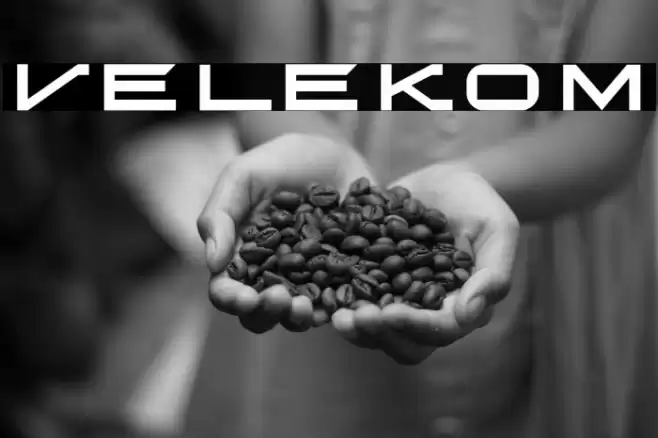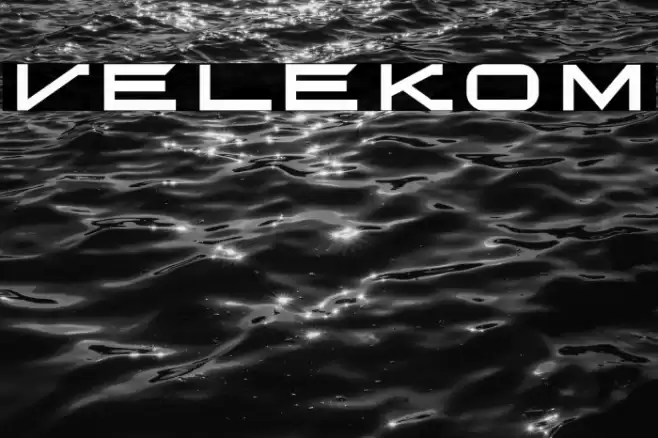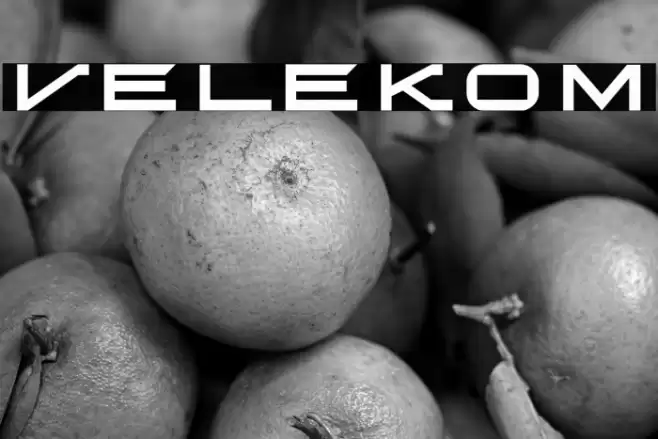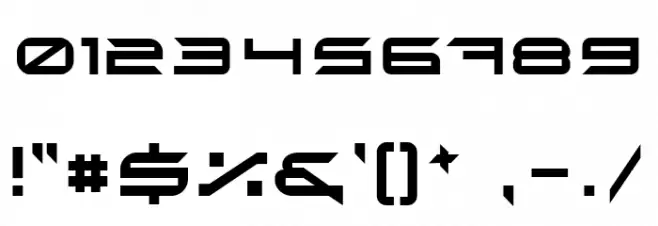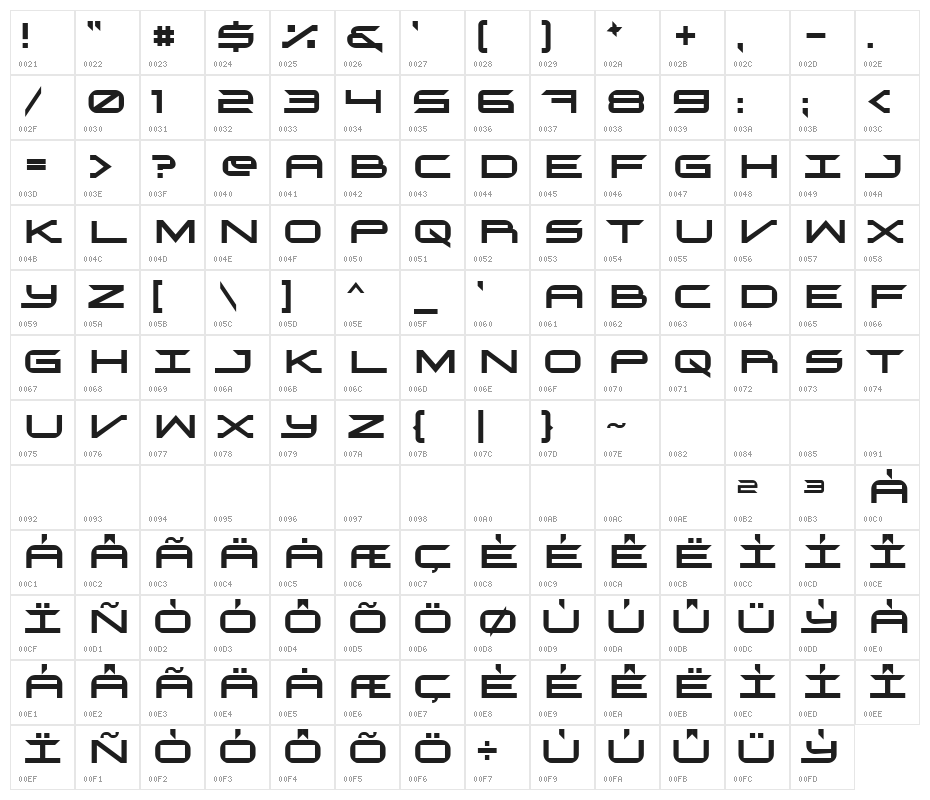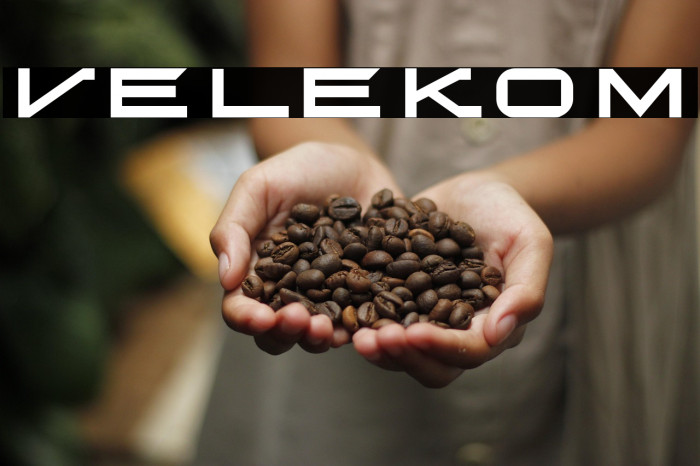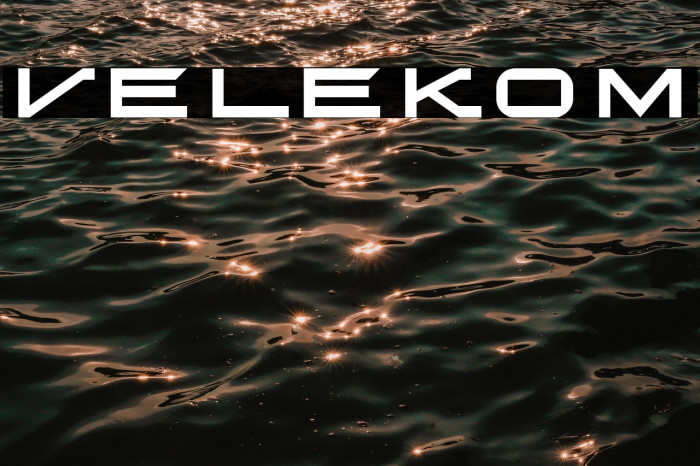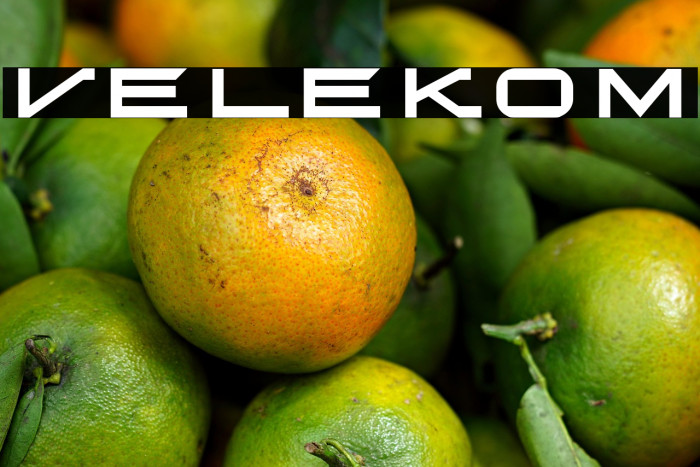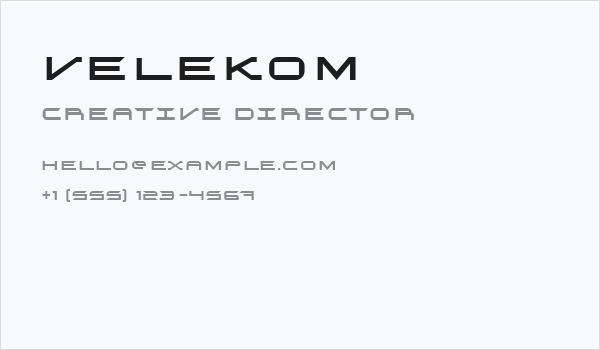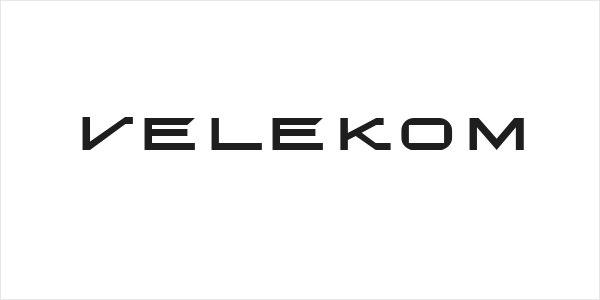
Velekom Font
Velekom Description
This font features a futuristic and geometric design with sharp angles and clean lines. The uppercase and lowercase letters maintain a consistent style, emphasizing a modern and sleek appearance. The numerals are bold and distinct, complementing the overall aesthetic. Special characters are uniquely crafted, adding to the font's distinctive look. The uniformity in stroke width and the angular cuts give it a dynamic and tech-inspired feel, making it suitable for projects that require a contemporary and edgy touch.
A futuristic, geometric font with sharp angles and a sleek design from Regular fonts.
- Proposed Projects: Ideal for technology branding, sci-fi movie posters, video game titles, and modern digital interfaces.